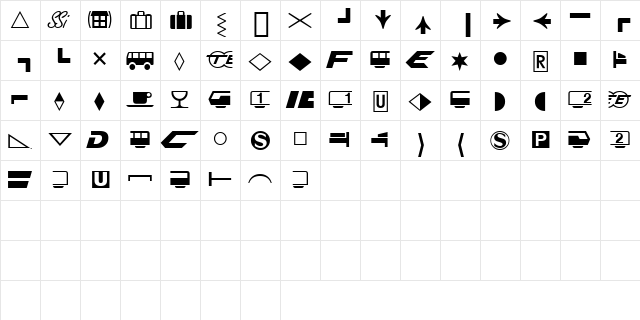
FormatPiThreeSSK Regular
Design Context for FormatPiThreeSSK Typeface
FormatPiThreeSSK is a composed and adaptable typeface that performs quietly and consistently across a wide range of design contexts.